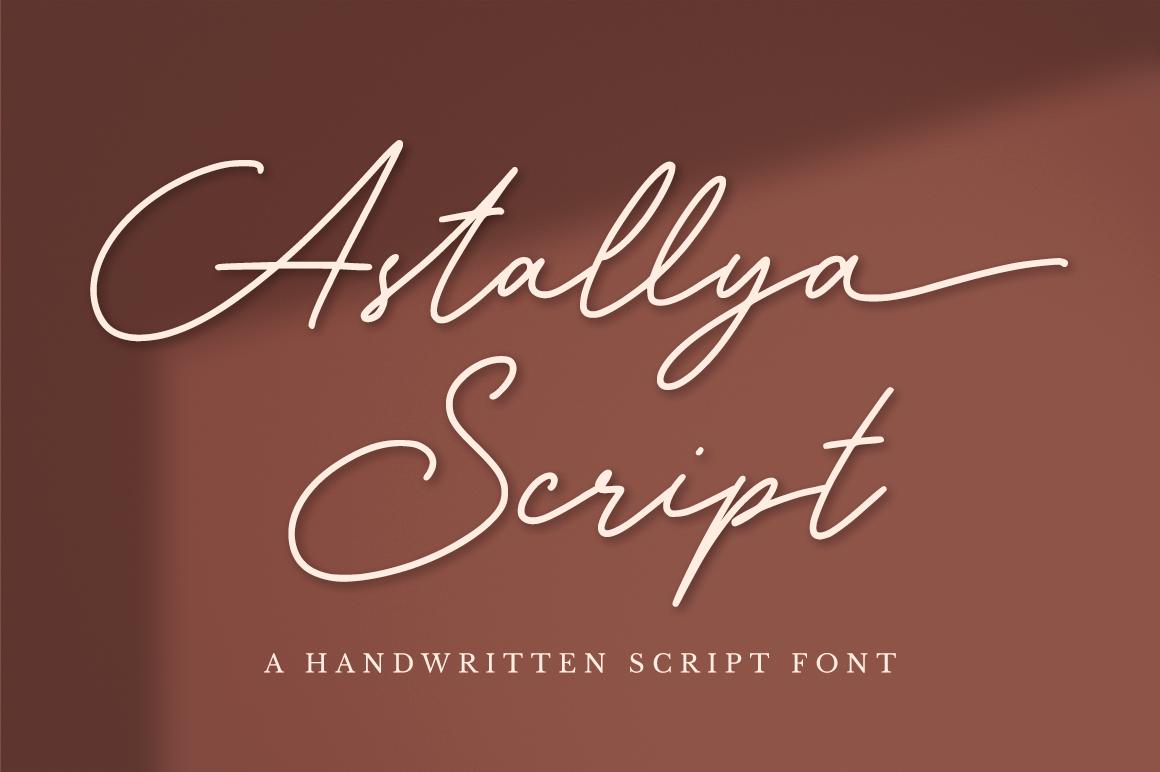
Astallya Font Description
Astallya Script is a modern signature font which is combining classic calligraphy with a modern style. Its dancing baseline will give your design an elegant and modern touch.
This font is PUA encoded which means you can access all of the cute glyphs and swashes with ease! It also features a wealth of special features including alternate glyphs and ligatures.